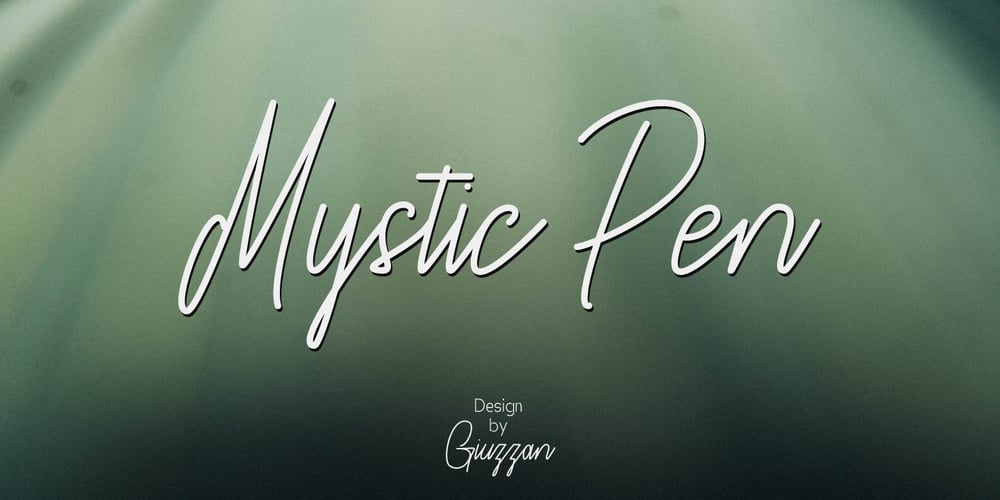
Mystic Pen Font Family was designed by Muhamad Fauzan and published by Giuzzan. Mystic Pen contains 1 styles and family package options. Mystic Pen is an elegant script font, reminiscent of calligraphy, that adds a touch of sophistication and personalization to your designs. With fluid strokes, versatile usage, and a hint of mysticism, it’s perfect for invitations, logos, and branding. Elevate your projects with the charm of Mystic Pen.